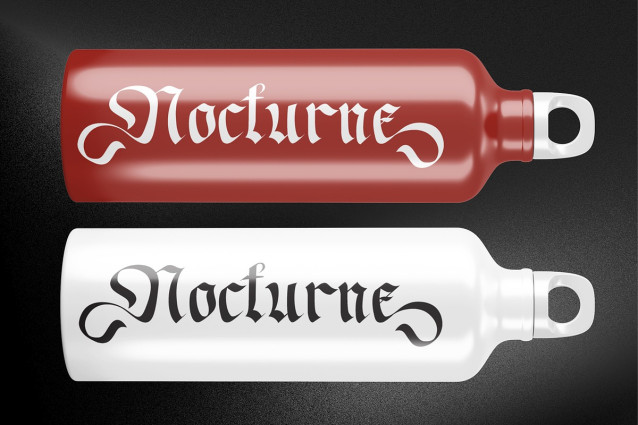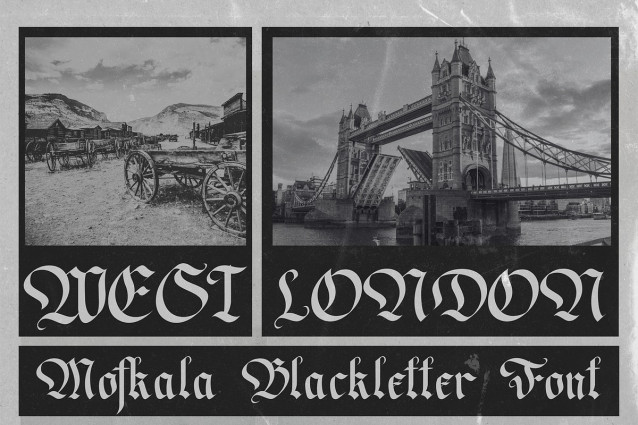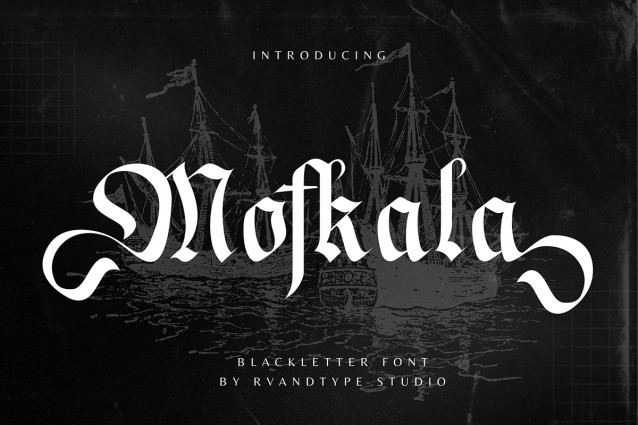
Mofkala Blackletter Font
Mofkala Blackletter Font is a modern blackletter display font that blends traditional gothic aesthetics with a bold, contemporary edge. Designed for impact, this typeface brings a strong character and unique presence to any visual project.